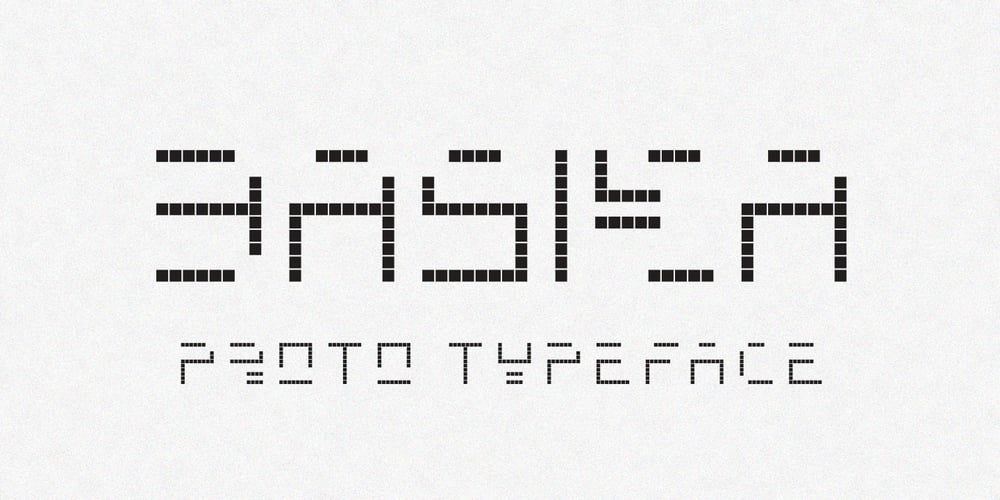
Basika Font Family was designed by Enrico Sogari and published by NOS. Basika contains 3 styles and family package options. Basika is a Display proto-typeface, a bridge from the past into the future of experimental typeface design. It’s a powerful communication tool for designers who want to create unique projects. The concept of Basika has been developed over many years and became a typeface throughout 2019. Basika was released in December of the same year.Basika comes in three styles, includes discretionary ligatures and stylistic alternates. Don’t hesitate to get in touch at nos.ink.Basika current version: 1.2 – released in April 2022.